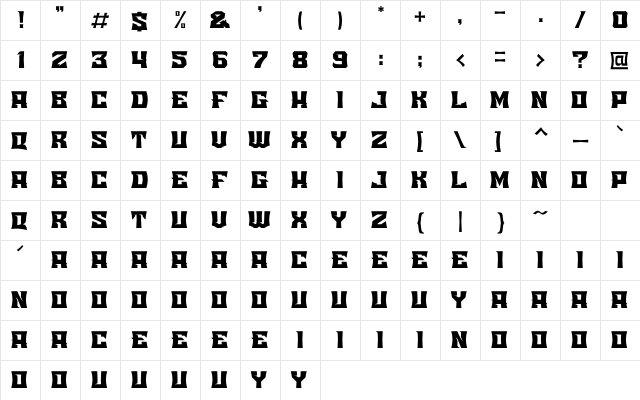
Esporta Regular Font Preview
Esporta Regular
Esporta Regular Font Details
| Foundry | Grewfont Studio |
| Designer | Adi Grewfont |
Design Context for Esporta Typeface
Esporta has the bold swagger of sports branding: strong, assertive letterforms designed to dominate headlines and jerseys alike.
A natural choice for gym brands, fantasy sports, jersey lettering, and action-driven headlines.
Pro Tip: Use Esporta in all-caps headlines where its athletic energy can fully express itself. Pair with a solid, simple sans for supporting text.